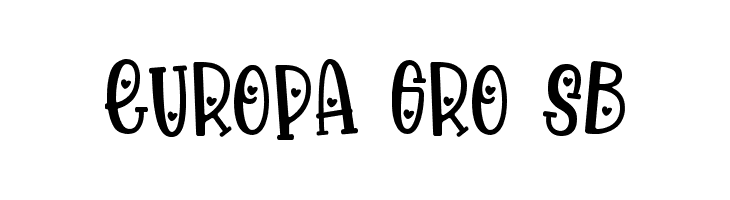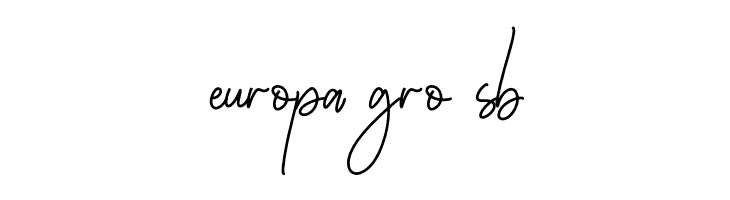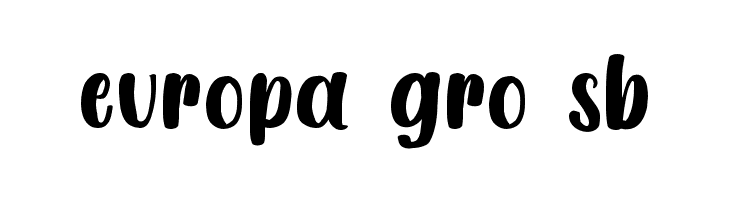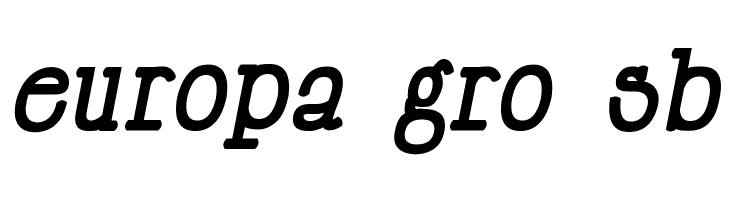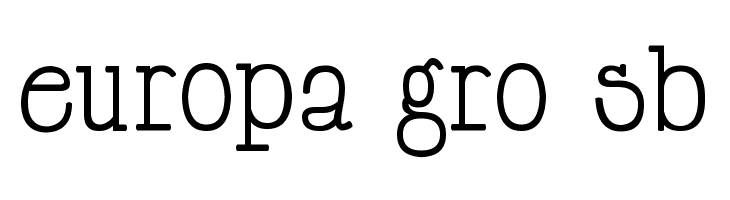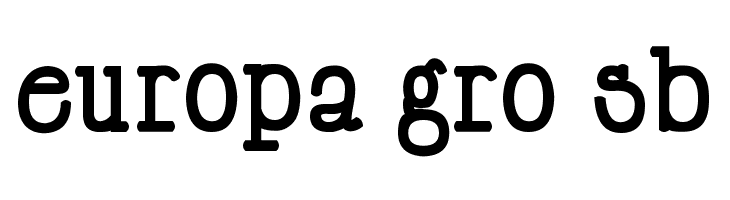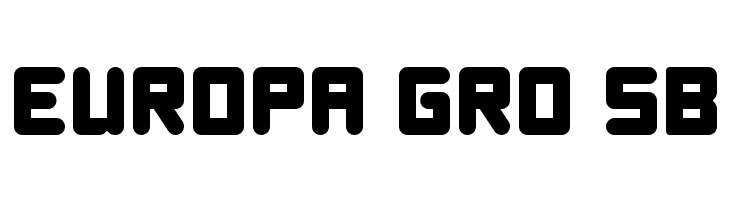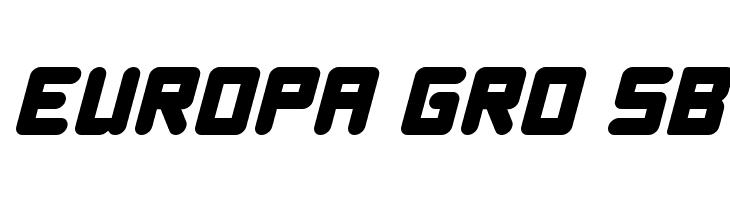
A bold, playful font with thick outlines and a cartoonish style.
A lively, expressive handwritten font with fluid strokes.
A bold, rounded font with a modern and playful style.
A bold, italic font with rounded characters and a modern, energetic style.
A festive, decorative font with Easter-themed elements and bold styling.
A playful, heart-accented decorative font with bold, rounded characters.
A playful, bold, handwritten font with a whimsical and inviting style.
A modern serif font with clean lines and balanced structure.
A bold, classic font with rounded serifs and strong presence.
A bold, italic serif font with dynamic, forward-leaning characters.